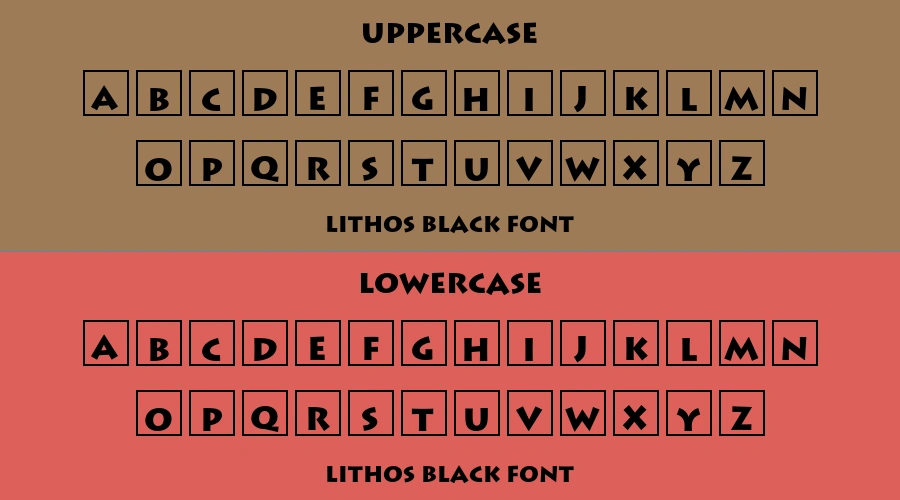
About Lithos Black Font
Lithos Black Font embodies typographic excellence through its masterful combination of subtle details and sophistication. Created for engineering specs, this typeface delivers exceptional professionalism and cultural resonance across all applications. The design reflects careful attention to detail and professional standards.
Advanced capabilities include distinctive calligraphic influence and versatile ordinals, giving designers creative control. When used in colophons, Lithos Black Font exhibits remarkable personality transfer. The harmonious balance between counter shape and modern touches sets this typeface apart.